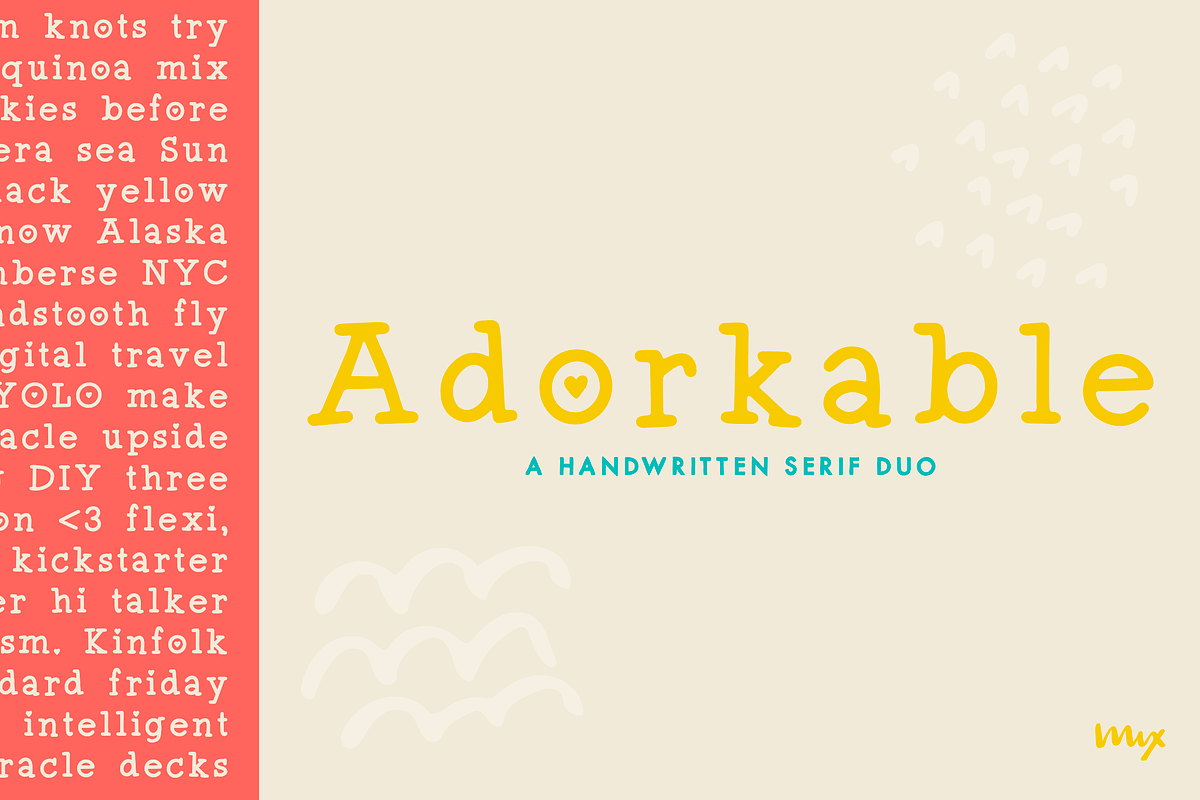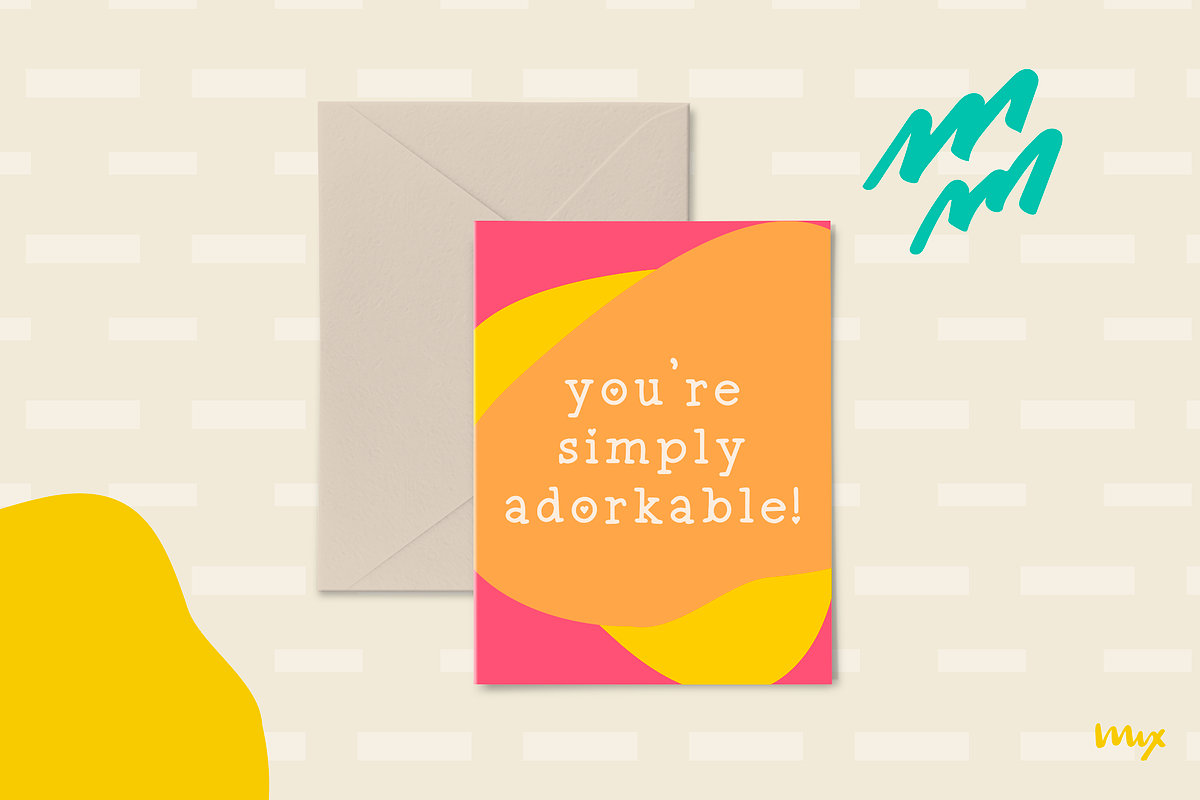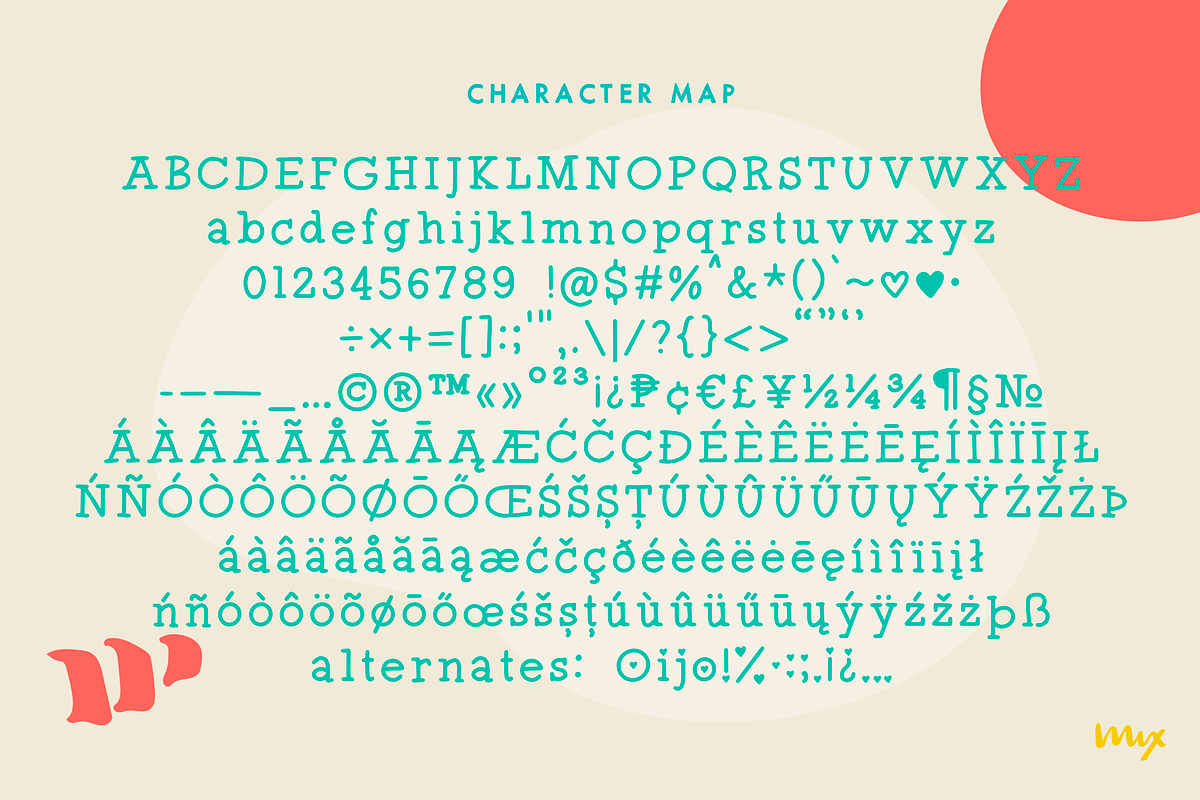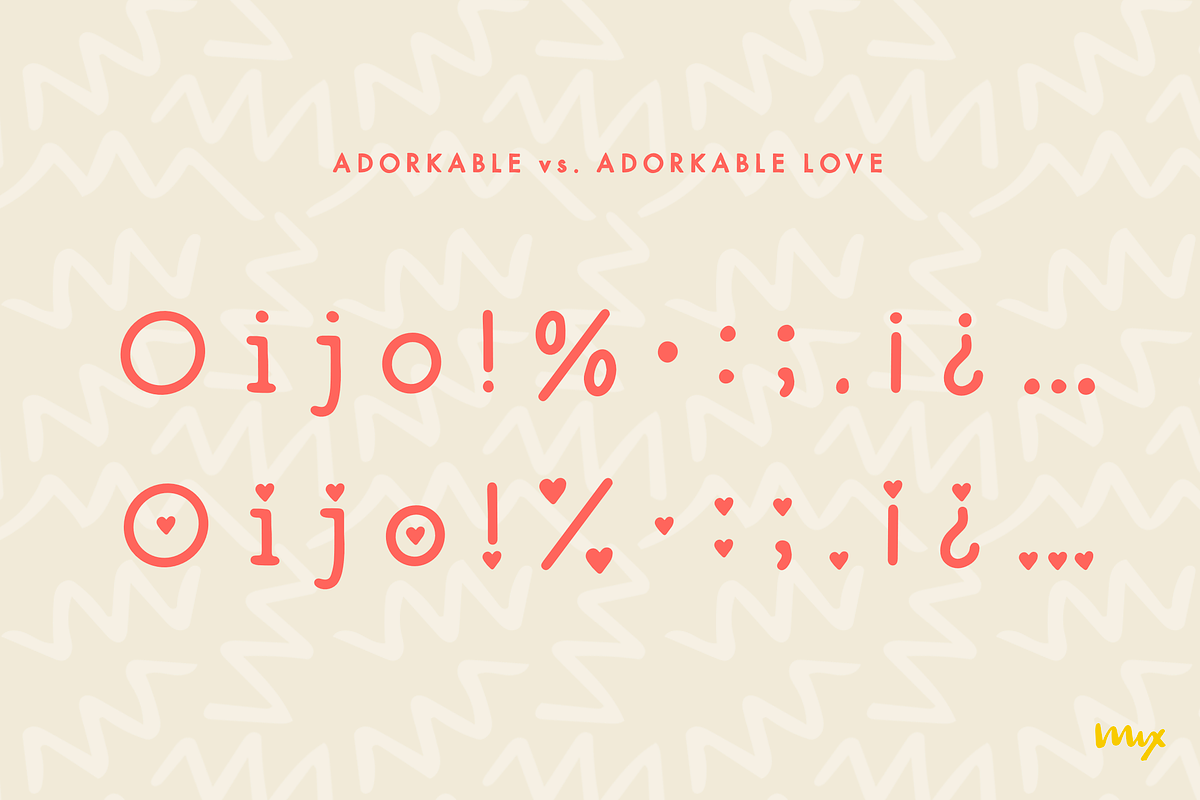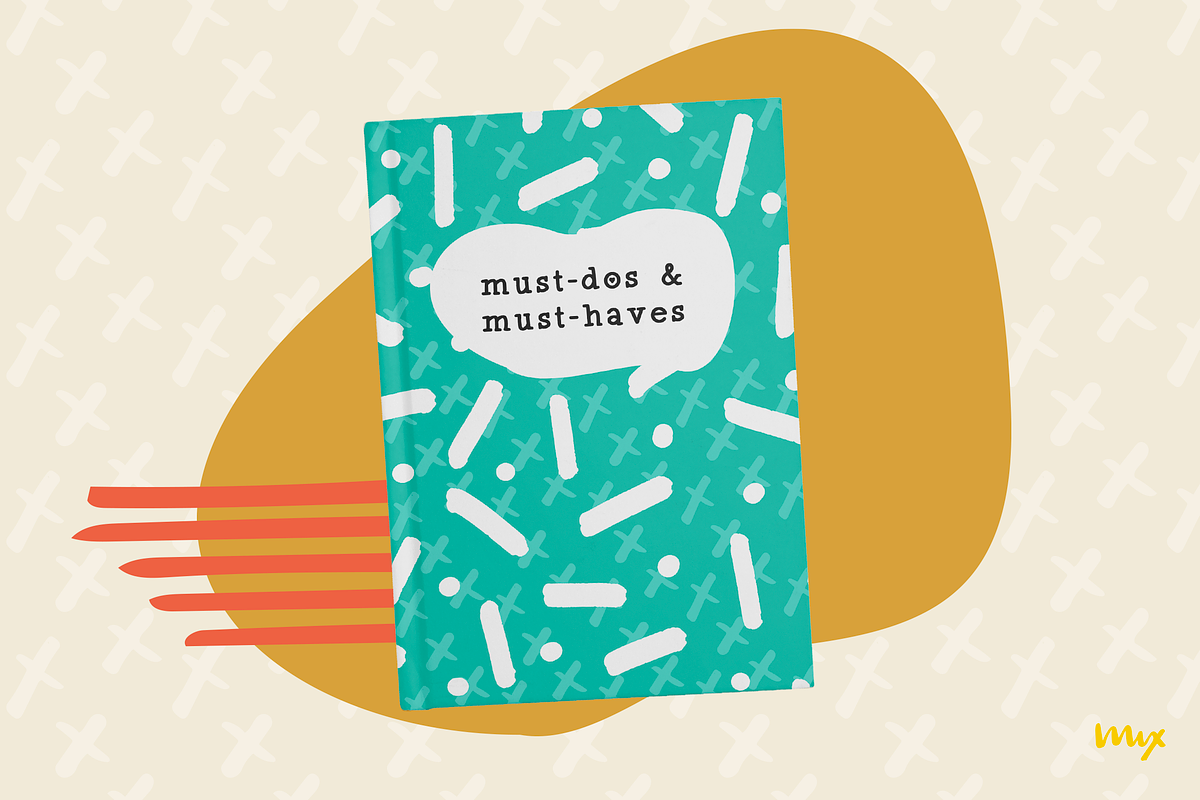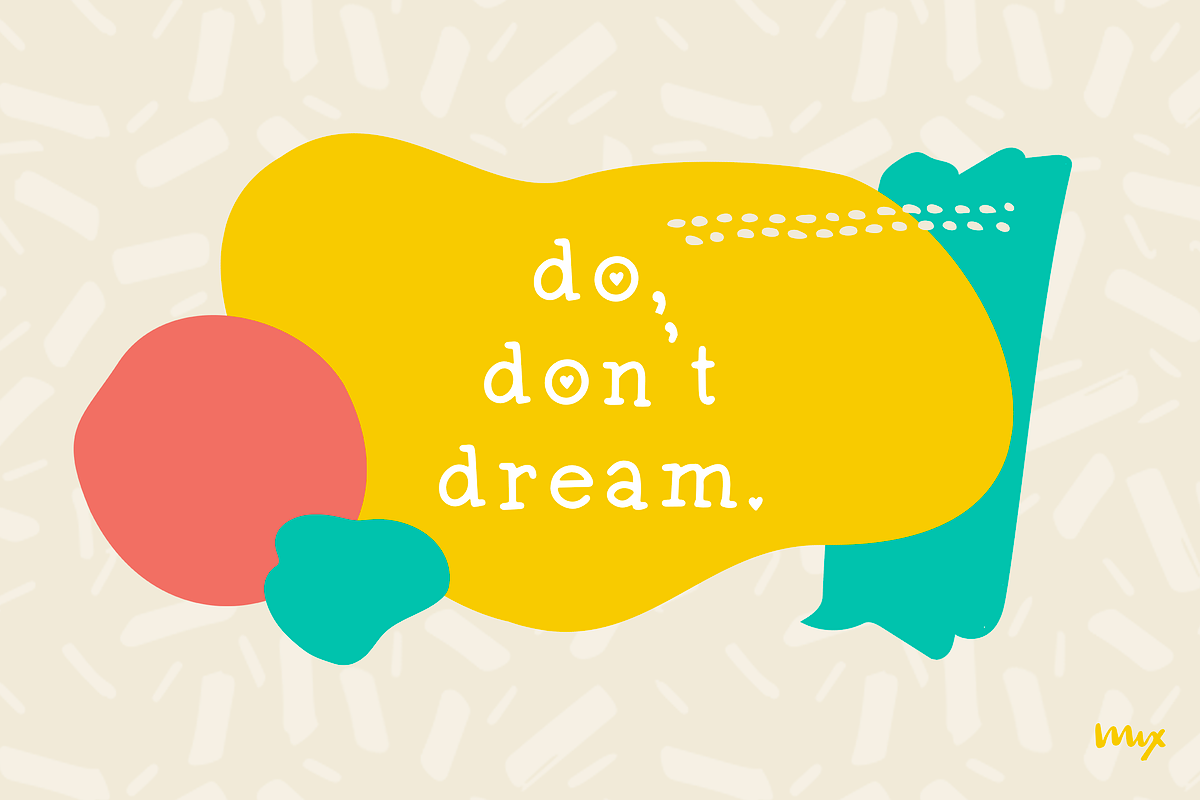
Adorkable - A Handwritten Serif Duo
Meet MIX ADORKABLE, a handwritten serif font that adds a touch of quirkiness to your designs. The slightly wobbly strokes give this font a distinct and playful feel, making it perfect for social media, at-home projects, DIY, crafting and other girly or kiddie projects. Adorkable is created by hand with the Mix Streamline Procreate Brush (Available here! on an iPad Pro and then refined and converted into a font.
But that’s not all, MIX ADORKABLE also has alternate options for certain letters, replacing dots and circles with cute hearts. These alternate options give you the freedom to switch up your design and add an extra touch of cuteness. For those who can’t access alternates, MIX ADORKABLE LOVE is the same font but using the heart-glyphs as defaults, making it readily usable for all. Mix Adorkable Love pushes the envelope even further, taking the cuteness to the next level.
Whether you’re creating social media posts, working on at-home projects, DIY projects, crafting or any girly or kiddie projects, MIX ADORKABLE and MIX ADORKABLE LOVE are the perfect fonts for adding a touch of whimsy and cuteness to your designs. With its distinct and playful style, MIX ADORKABLE and MIX ADORKABLE LOVE are sure to make your designs stand . Get your hands on these playful fonts today and add a touch of quirkiness to your designs.
alternates for: Oijo!%•:;.¡¿…